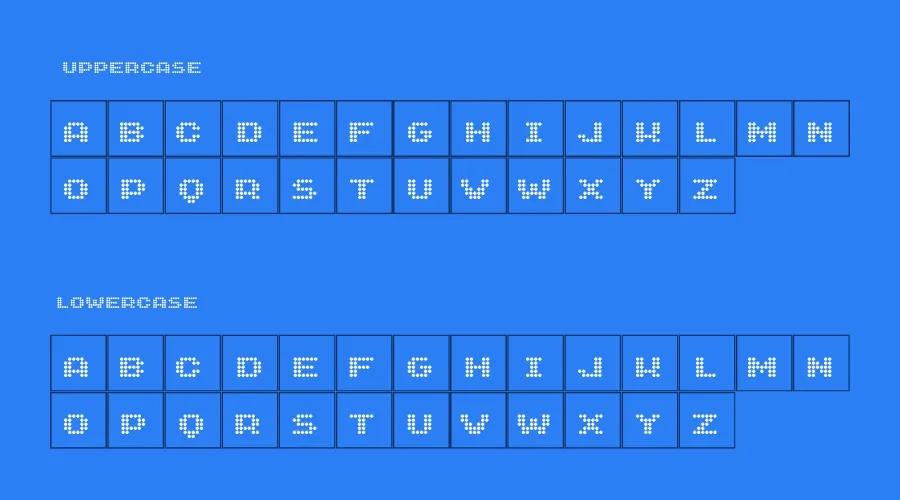
About Genetrix Crossed Font
Genetrix Crossed Font is a techno style the typeface has been used in a variety of types of designs for many reasons. Your simple designs will look bold and stylish with them. Due to its extra bold characters, it works well for titles and headings
The use of this typeface gives almost every design a heavy look, so it would be an ideal choice for big-text projects.